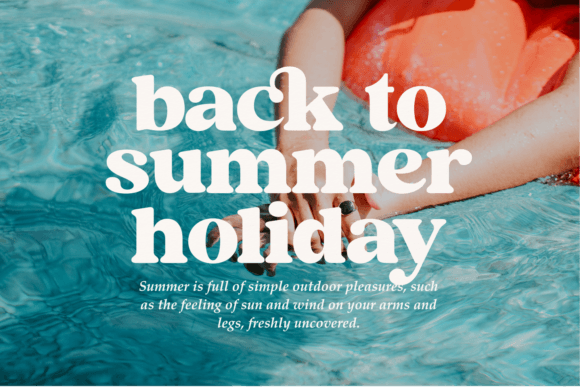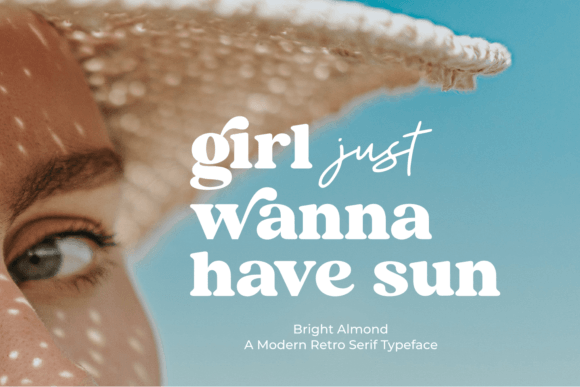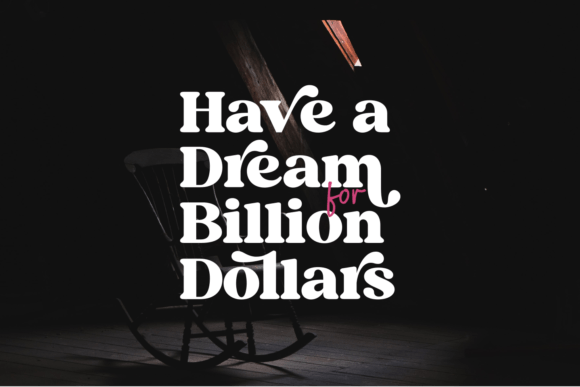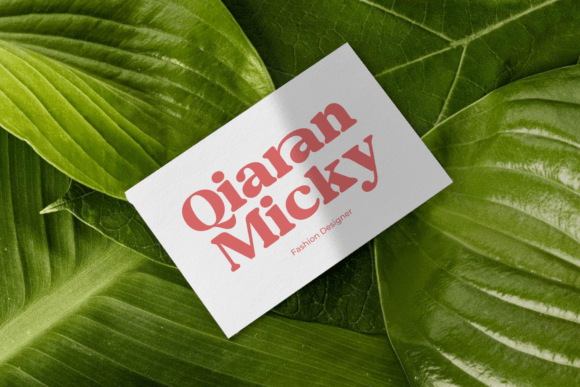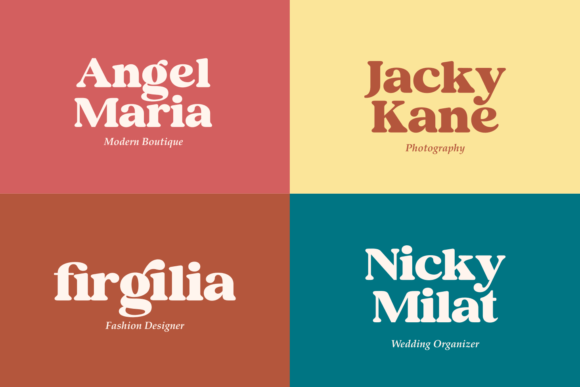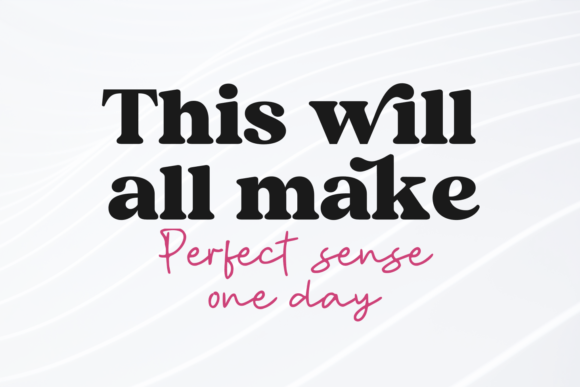
Introduction to Bright Almond Font
Have you ever stared at a blank canvas, waiting for that perfect font to spark your next creative project? For many designers, it’s a moment of frustration, but also a chance to discover something truly special. And that’s exactly what happened when I stumbled upon the stunning Bright Almond Font.
This elegant and luxurious typeface is more than just a pretty face – it’s a design resource that can elevate any project to new heights. With its unique style and modern look, Bright Almond Font is perfect for creating eye-catching logos, book or movie title designs, fashion brand identities, and magazine covers.
Key Features of Bright Almond Font
- High-quality design resource suitable for various creative projects
- Features a transparent background, ideal for use on various design elements
- Comes in a single weight, perfect for adding a touch of elegance to your design
- Designed with high resolution (300 DPI) for crisp and clear display on various screens
- Can be easily customized and edited using popular design software
Honest Review: Bright Almond Font
As a designer, I’m always on the lookout for high-quality design resources that can elevate my creative projects. Recently, I stumbled upon the Bright Almond Font, and I’m excited to share my thoughts on it.
- ✨ The font has a unique and modern design aesthetic that’s perfect for creative projects that require a touch of elegance.
- ✨ The transparent background option allows for seamless integration with any background image or color.
However, I do have a few reservations:
- ⚠️ The font may not be suitable for projects that require a bold, attention-grabbing font style.
Overall, I’m impressed with the Bright Almond Font’s high quality and versatility. It’s a great addition to any designer’s toolkit, and I’m excited to use it in my future projects.
Bright Almond Font is ideal for use in creative projects, such as infographics, brochures, and flyers. It is also suitable for use in branding and marketing materials, including logos and business cards.
To get the most out of Bright Almond Font, use it in conjunction with other design resources, such as graphics and images. Experiment with different font sizes and styles to create visually appealing designs.